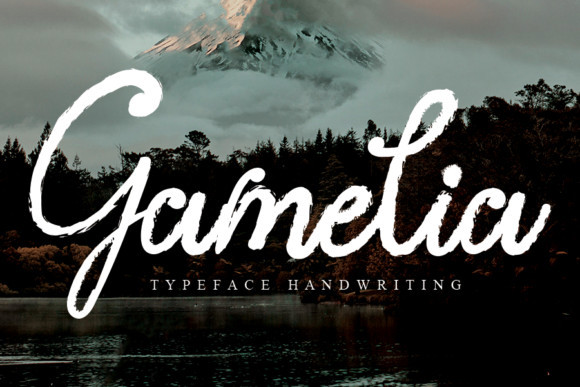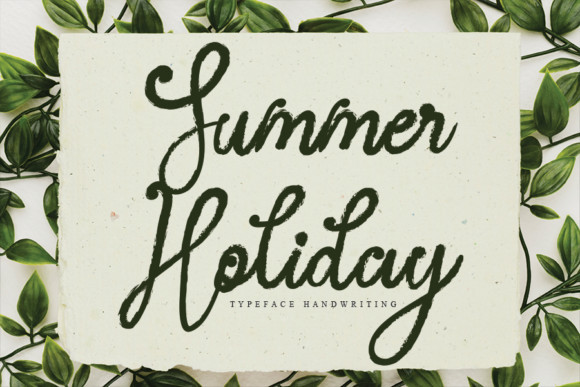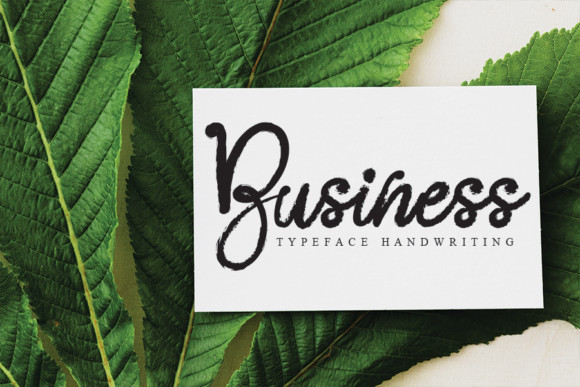
Gamelia Font
Gamelia is a bold handwritten font with brush styte letters. Get inspired by its timeless style and use it to create spectacular designs!